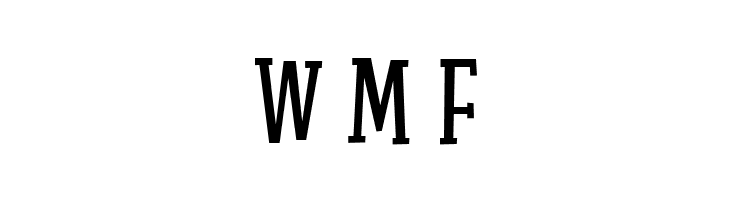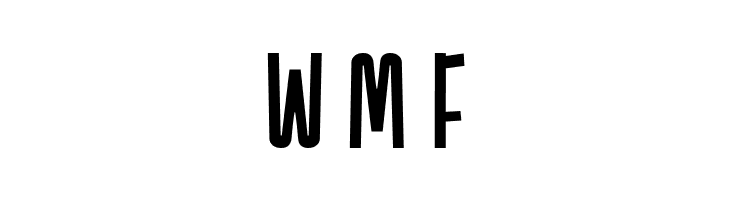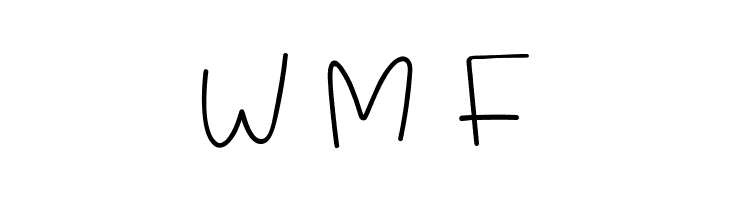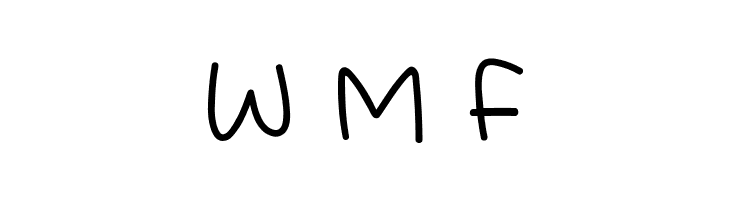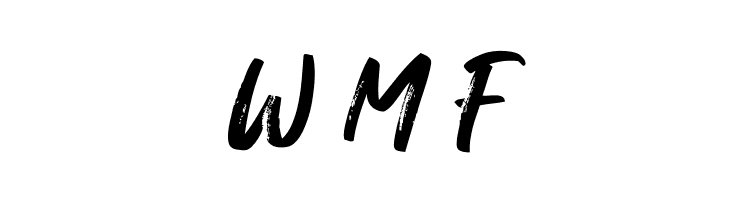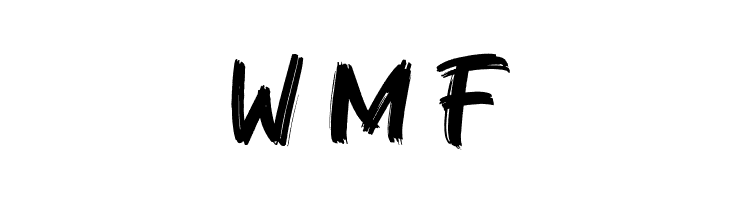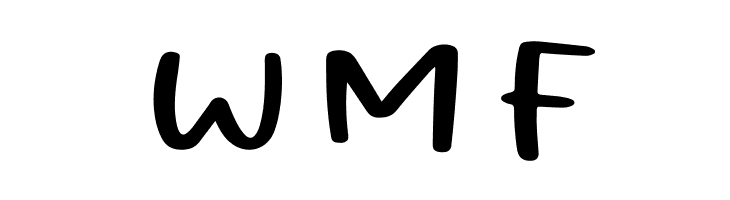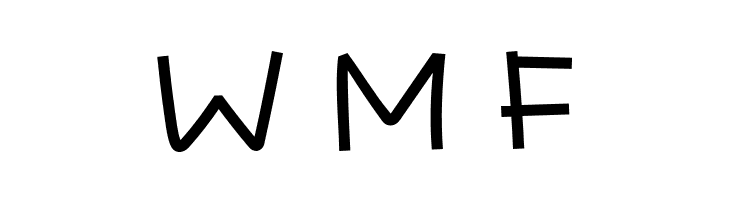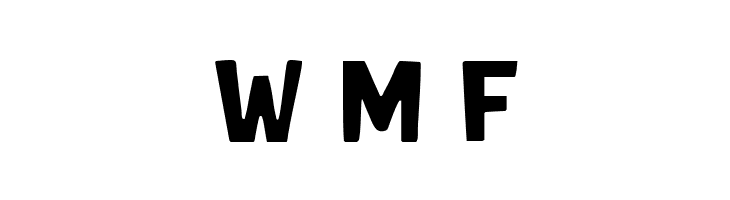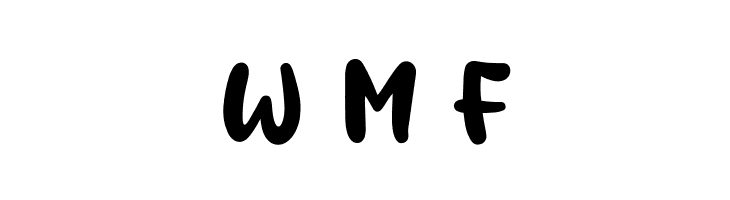
A bold, dynamic brush script font with expressive strokes and a hand-painted look.
A bold, high-contrast serif typeface with a strong, dynamic presence.
A playful, bold font with a hand-drawn, youthful style.
A bold, playful handwritten font with rounded letterforms.
A playful, rounded font with a bold and friendly appearance.
A bold, playful font with a hand-drawn, condensed style.
A playful, casual handwritten font with fluid, connected strokes.
A playful, handwritten font with smooth, rounded edges and a casual style.
A bold, brush-style font with an energetic and artistic appearance.
A bold, brush-style font with an energetic and artistic flair.
A bold, playful handwritten font with smooth curves and consistent thickness.
A lively, handwritten font with fluid strokes and a dynamic, personal touch.
A playful, bold font with rounded edges and a hand-drawn style.
A bold, rounded font with a playful and friendly style.
A playful, handwritten-style font with a casual and friendly appearance.
A playful, bold font with rounded edges and a whimsical style.
A playful, bold font with rounded edges and consistent thickness.
A bold, playful font with rounded, thick strokes and a hand-drawn feel.
A bold, rounded handwritten font with a playful and casual style.
A playful, rounded font with smooth lines and a friendly vibe.
A playful, hand-drawn font with bold, irregular letterforms.
A playful, bold font with a hand-drawn, cartoonish style and rounded strokes.
A playful and whimsical font with bold, slightly condensed characters.
A playful, hand-drawn font with tall, narrow letters and a whimsical style.
A playful, handwritten-style font with bold, irregular characters.
A playful, rounded font with a bold, hand-drawn style.
A bold, rounded font with a playful and friendly style.
A playful, bold handwritten font with rounded letterforms.
A playful, hand-drawn font with rounded, bubbly characters.
A bold, playful handwritten font with rounded edges and a casual style.
A playful, bold font with rounded, bubbly characters and a friendly appearance.
A playful, bold font with rounded, bubbly characters ideal for creative projects.
A bold, playful handwritten font with thick strokes and a casual style.
A bold, playful font with rounded, hand-drawn characters.